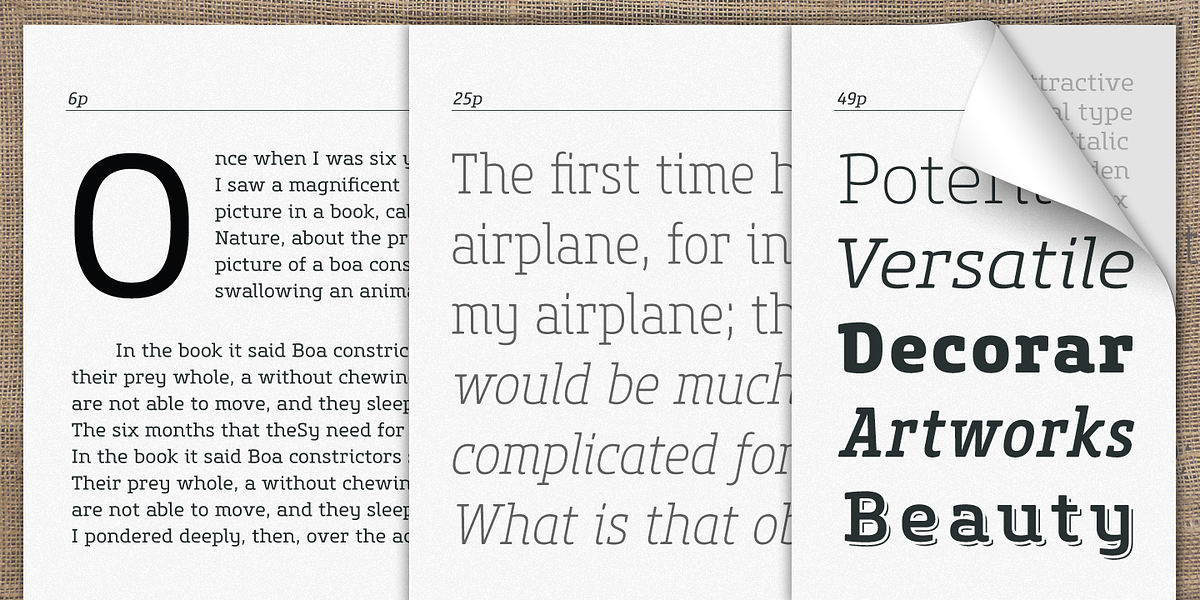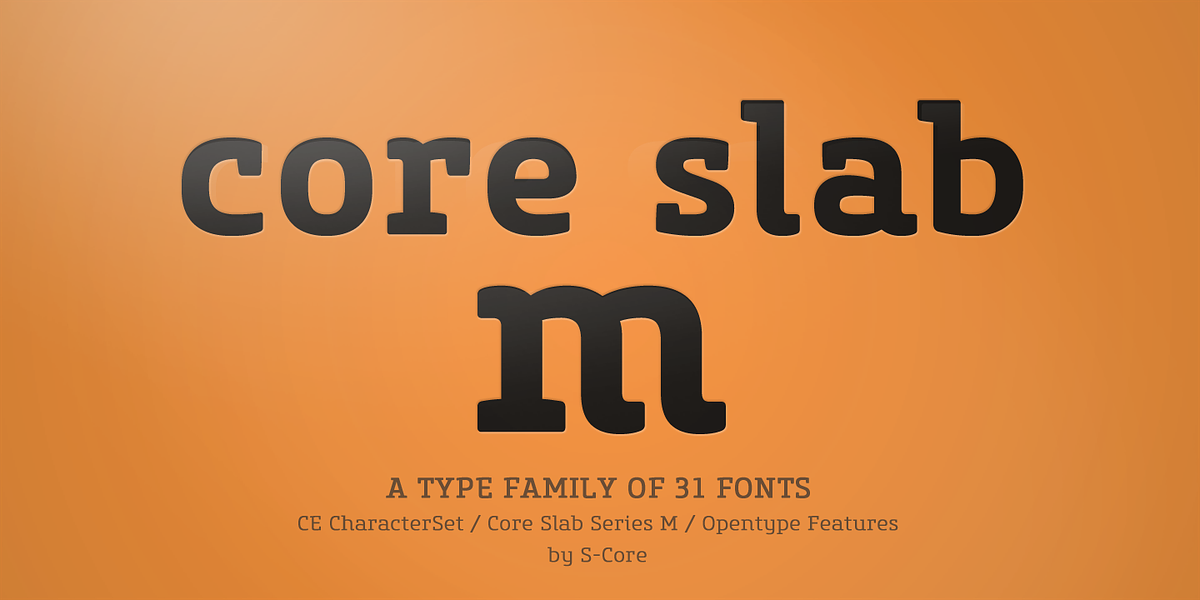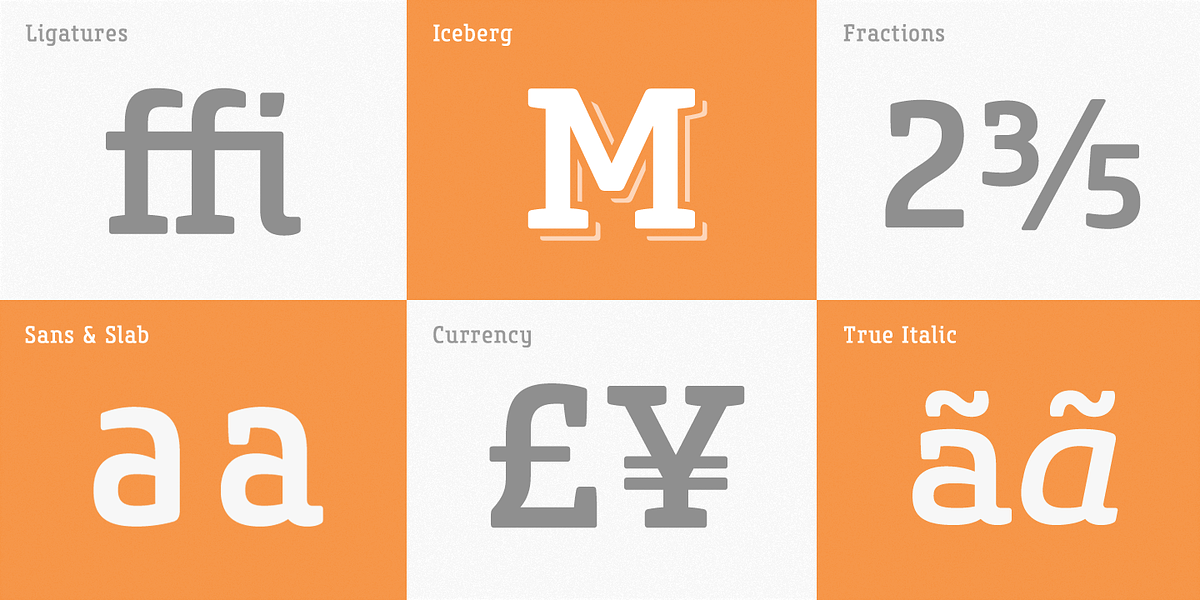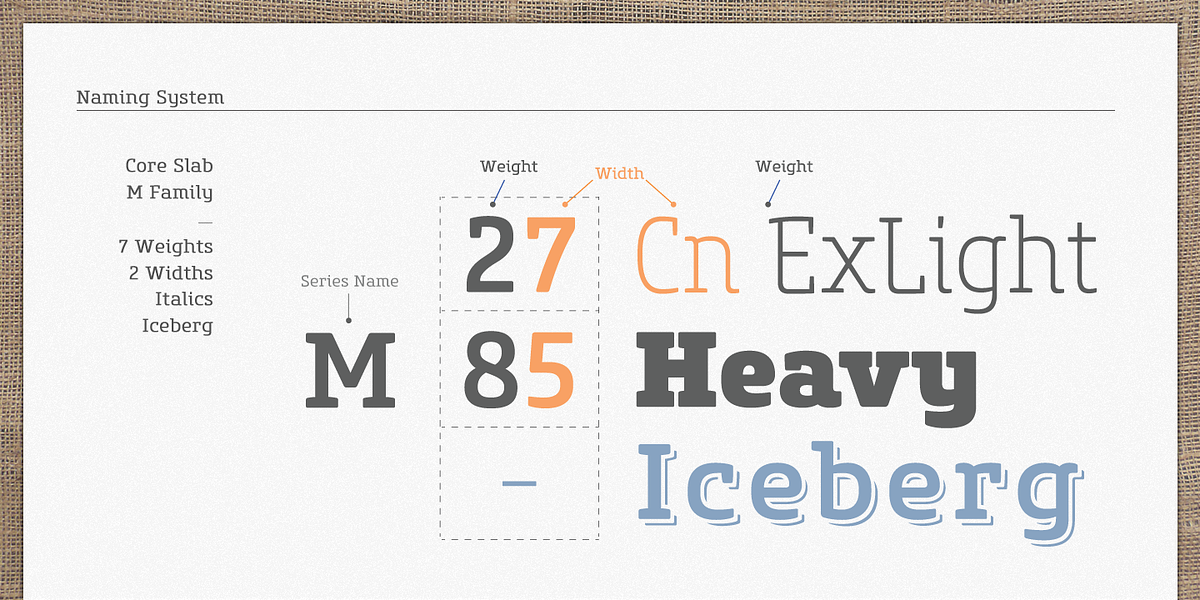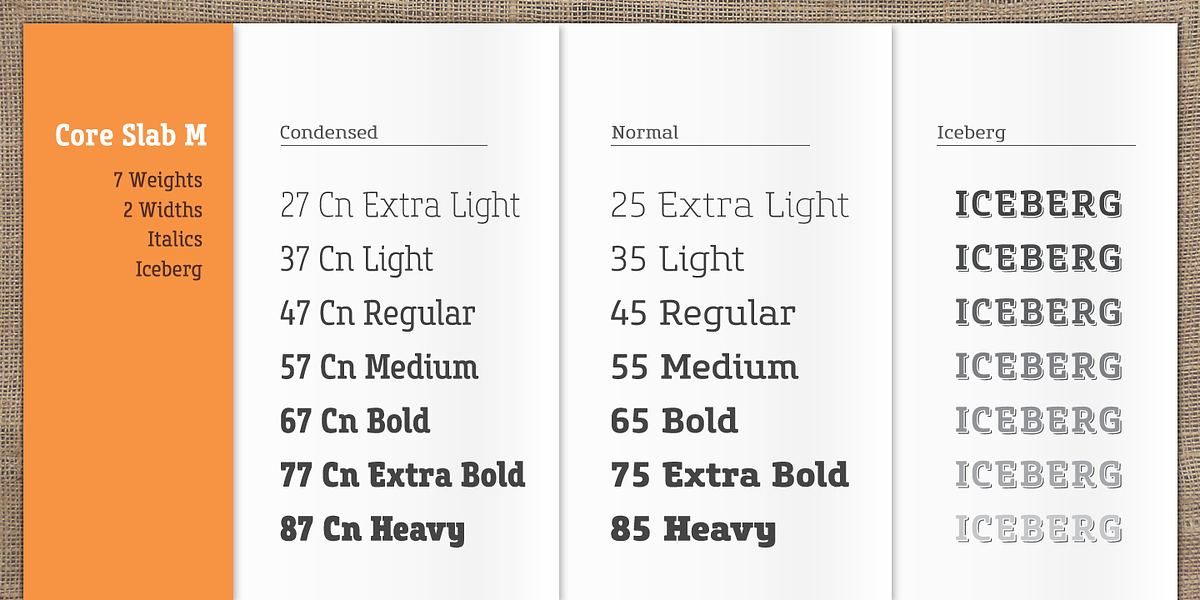
Core Slab M
Core Slab M is a humanist slab serif font family designed for versatility. Its open and square letter shapes combined with rounded finishes and serifs give it a friendly yet strong appearance. The tall x-height and precisely adjusted letter spacing contribute to excellent legibility, making it suitable for both headlines and body text. The Core Slab M family offers a wide range of weights and widths to accommodate various design needs. It also includes support for a comprehensive set of typographic features and symbols, further enhancing its utility in applications like books, web pages, screen displays, and branding.